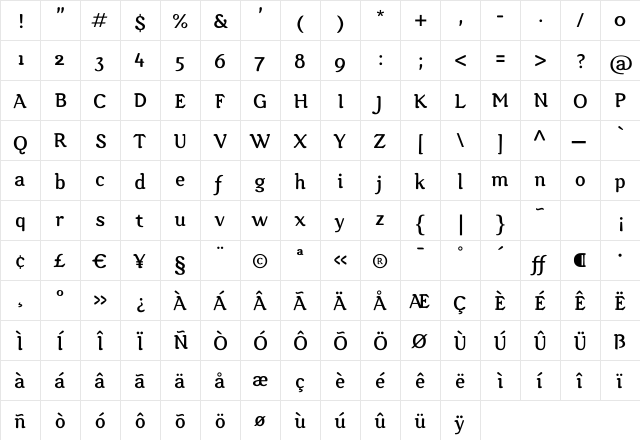
GopalRegular Regular
Design Context for GopalRegular Typeface
GopalRegular takes a measured approach to typography — its balanced proportions and neutral character make it a reliable workhorse for both digital and print work.